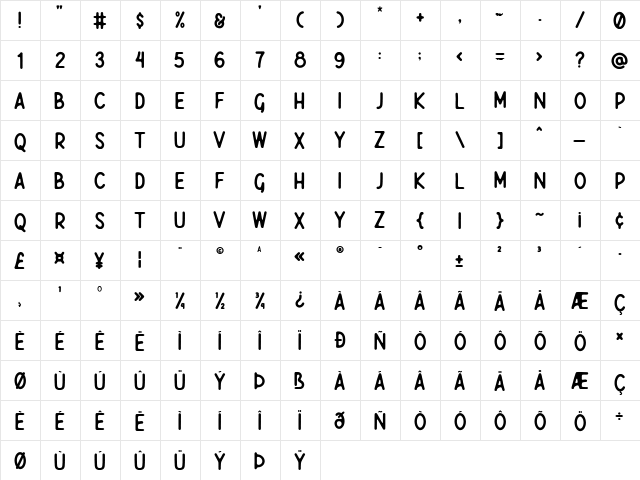
Javatages Regular
Design Context for Javatages Typeface
Javatages is a composed and adaptable typeface that performs quietly and consistently across a wide range of design contexts.